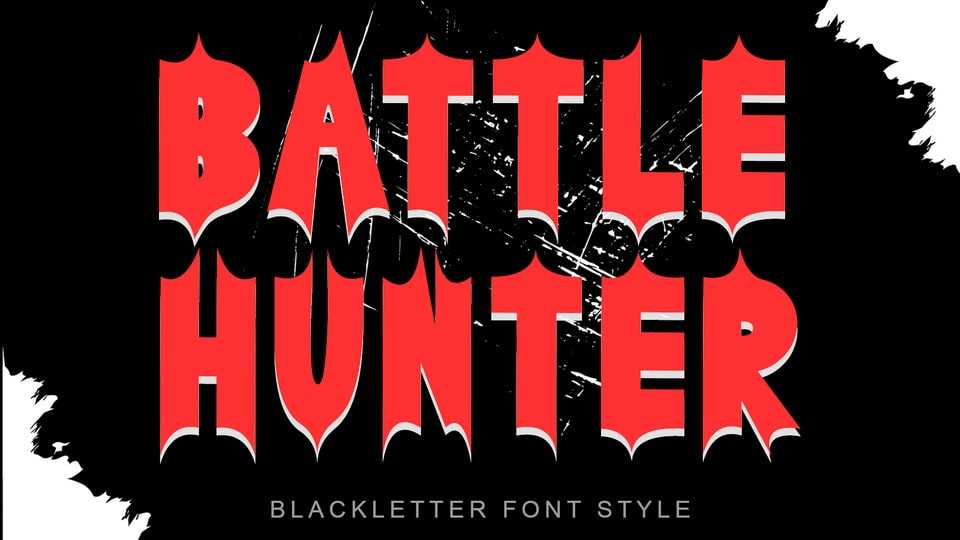
Download Battle Hunter font, a bold and professional blackletter typeface. It is perfect for use in movie titles, business branding, stickers, logos, prints.